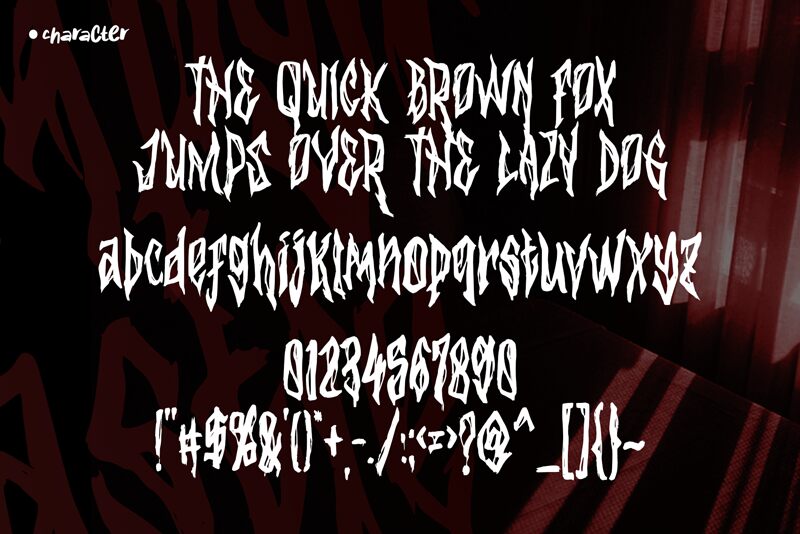
Vampyr Castle
Vampyr Castle font by Horror Font captures a haunting and supernatural vibe with its gothic and dramatic elements. This scary, condensed display typeface merges ornate, medieval inspirations to create a macabre aesthetic. It's perfectly tailored for horror-themed designs, blending decorative nuances that evoke an eerie mood.
Ideal for Halloween event posters, haunted house branding, theatrical presentations, or dark fantasy album covers and book titles. This free display font also stands out on magazine layouts, video game interfaces, cosplay promotion materials, thriller movie posters, tarot cards designs as well as dungeons and dragons campaigns.